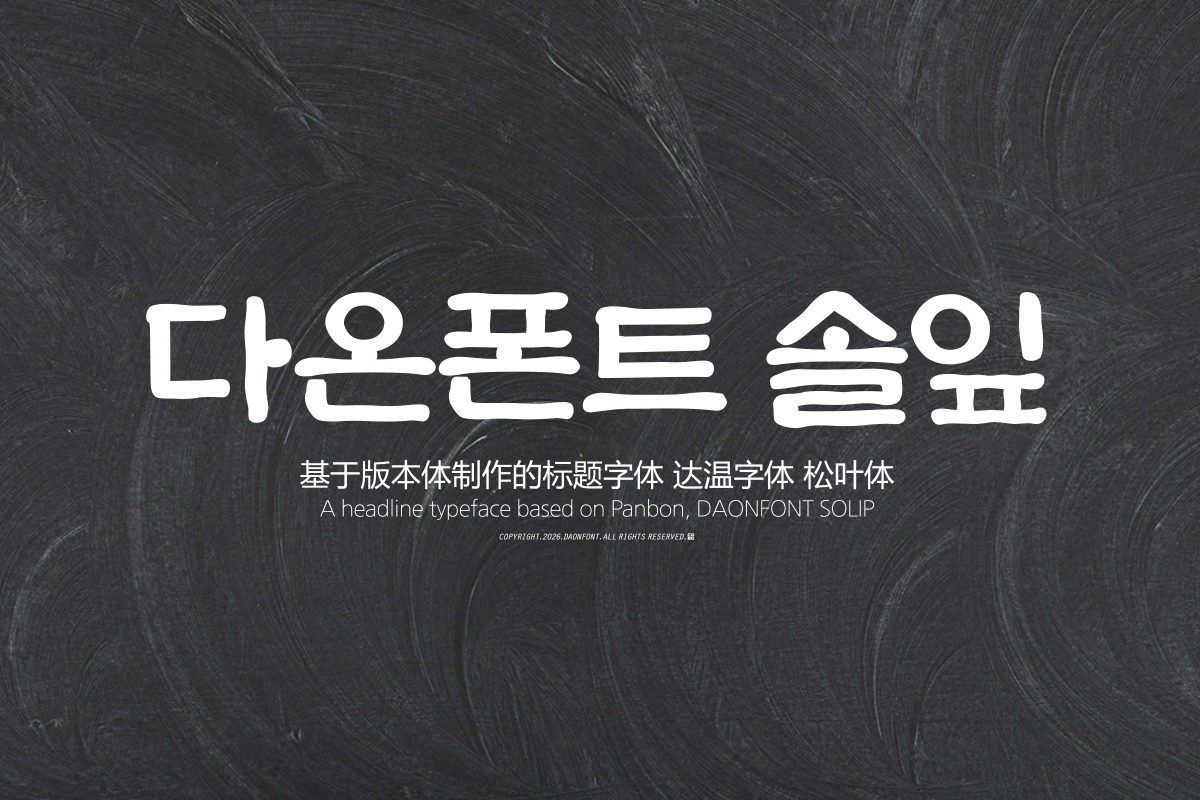
DAON SOLIP(M)
'SOLIP' is a title typeface based on traditional Panbonche, capturing the natural flow of brushstrokes within a neat structure. It enhances aesthetic form by highlighting side strokes and flourishes with the feel of natural strokes and rounded dot shapes.